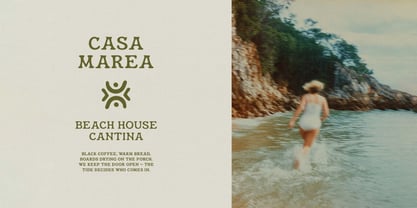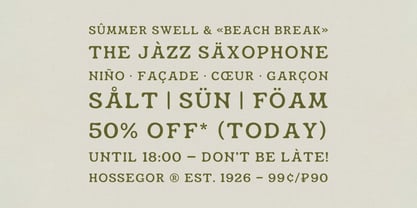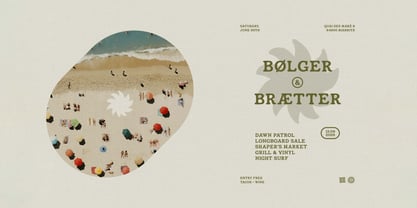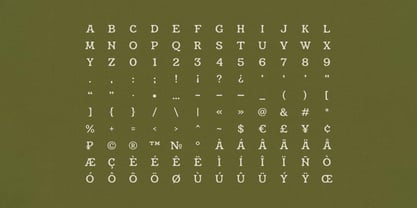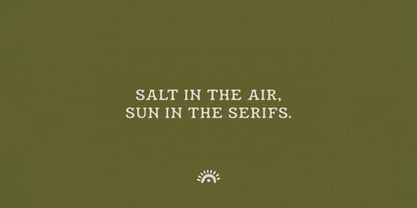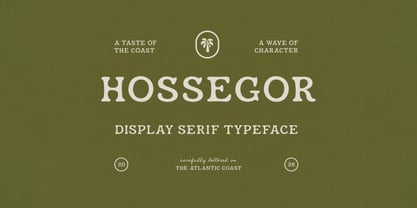
Hossegor Retro Surf Serif Display
Die Schriftfamilie Hossegor Retro Surf Serif Display wurde von Nikita Kuznetsov entworfen und von Pixelbuddha Studio veröffentlicht. Hossegor Retro Surf Serif Display enthält 1 Stile.
Hossegor takes its name from the surf town on France's Atlantic coast, and its letterforms come straight out of that 1970s seaside world: chunky slab serifs, rounded groovy bowls, and hand-cut edges with a sun-bleached, slightly irregular finish. It's an all-caps retro serif display font drawn to go loud on headlines and hold its warmth on labels, surf-shop signage, worn vinyl sleeves, and faded beach posters.
Its reach runs past English: the extended Latin set covers French, Spanish, Portuguese, Italian, German, Dutch, and the Scandinavian languages, with Ø, Æ, Å, Œ, Ñ, Ç, and full Western European diacritics on board. 179 characters
Full Latin: A–Z with matching lowercase set, numerals, punctuation & symbols — 100% ASCII coverage. Western European accented characters (À–Ÿ, Æ, Œ, Ø, Ç, Ñ), quotes & guillemets («» ‹› “” ‘’), currency (€ £ ¥ ₽ ¢), plus © ® ™ № • … °
Practical uses:
• Branding and identities — surf labels, café and restaurant marks, boutique shops, small studios.
• Poster and flyer design — beach events, gigs, weekend markets, product launches.
• Packaging — bottle labels, apparel tags, box sleeves, wrappers.
• Merchandise — tees, totes, caps, enamel pins, art prints.
• Editorial layouts — magazine headlines, chapter openers, pull quotes.
Designer: Nikita Kuznetsov
Foundry: Pixelbuddha Studio